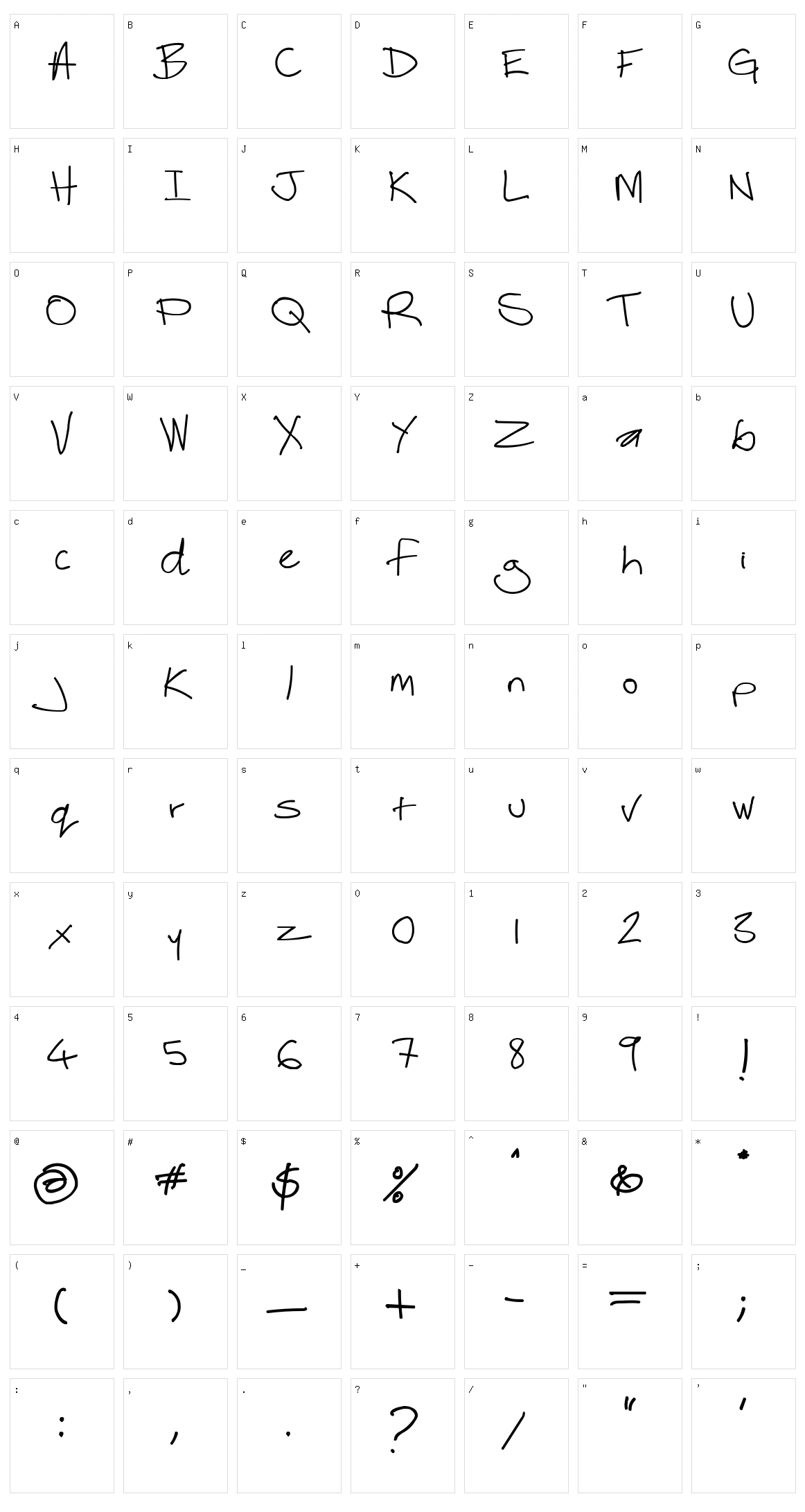
The free font The best of my love is carefully designed by Justin Biddle, showcasing a thoughtful balance of creativity and usability and falls under the Script font style. When you download the ZIP file, it contains only 69.6 KB of font files, making it lightweight and quick to download. Please review the license details below to understand permitted usage and distribution rights. If license information is not available, we recommend using this font for personal projects only or contacting the author directly for commercial usage permissions.